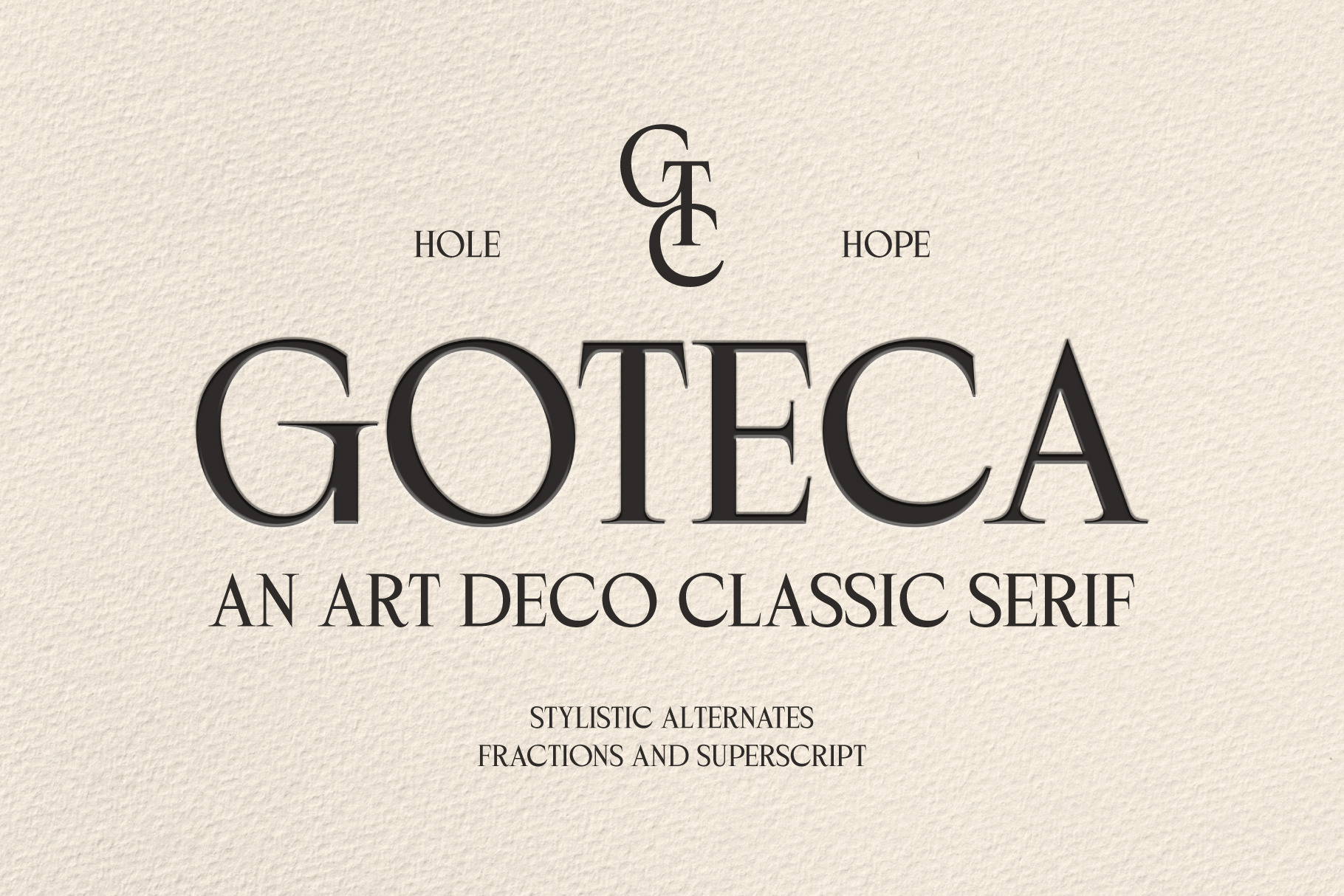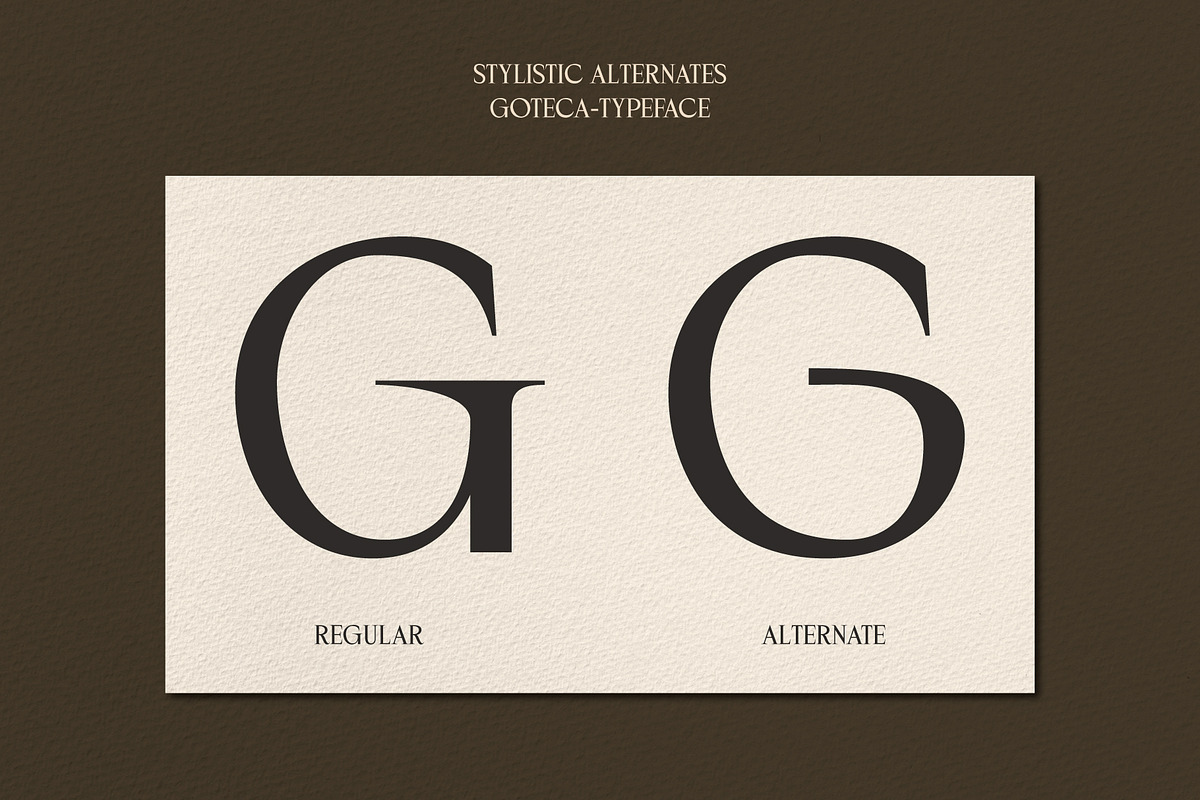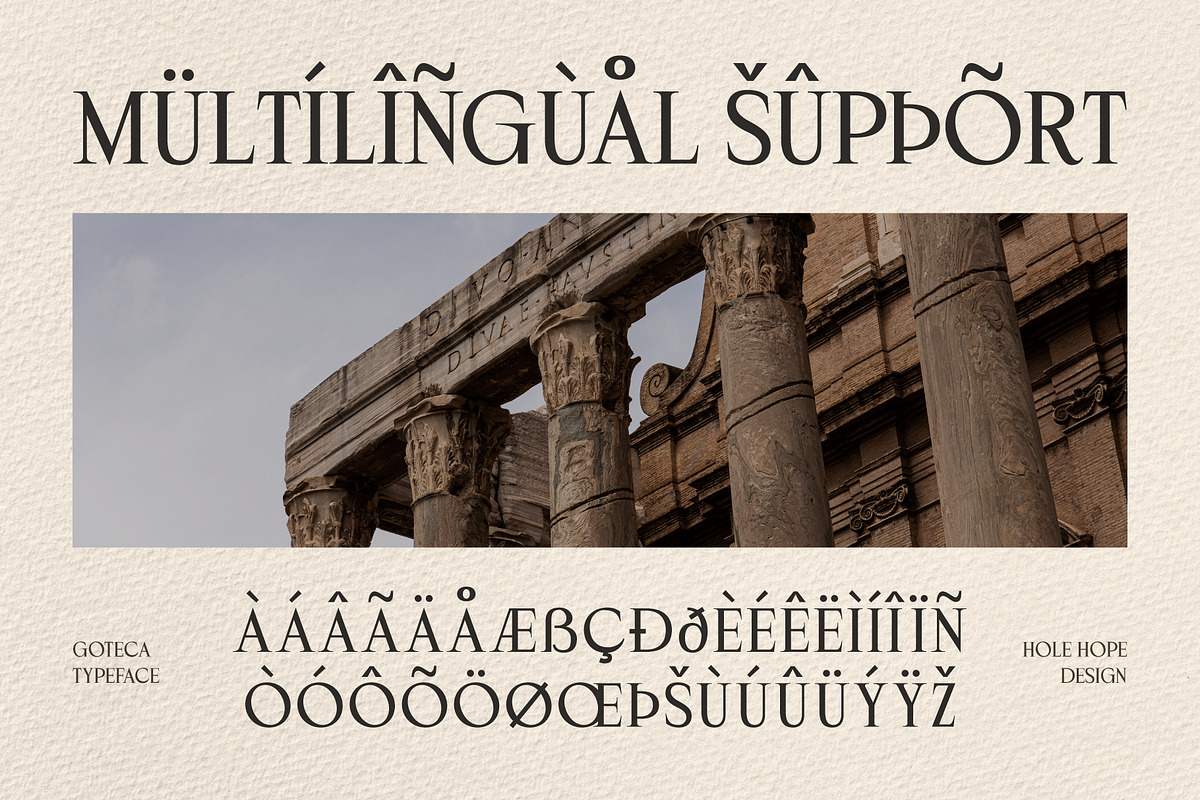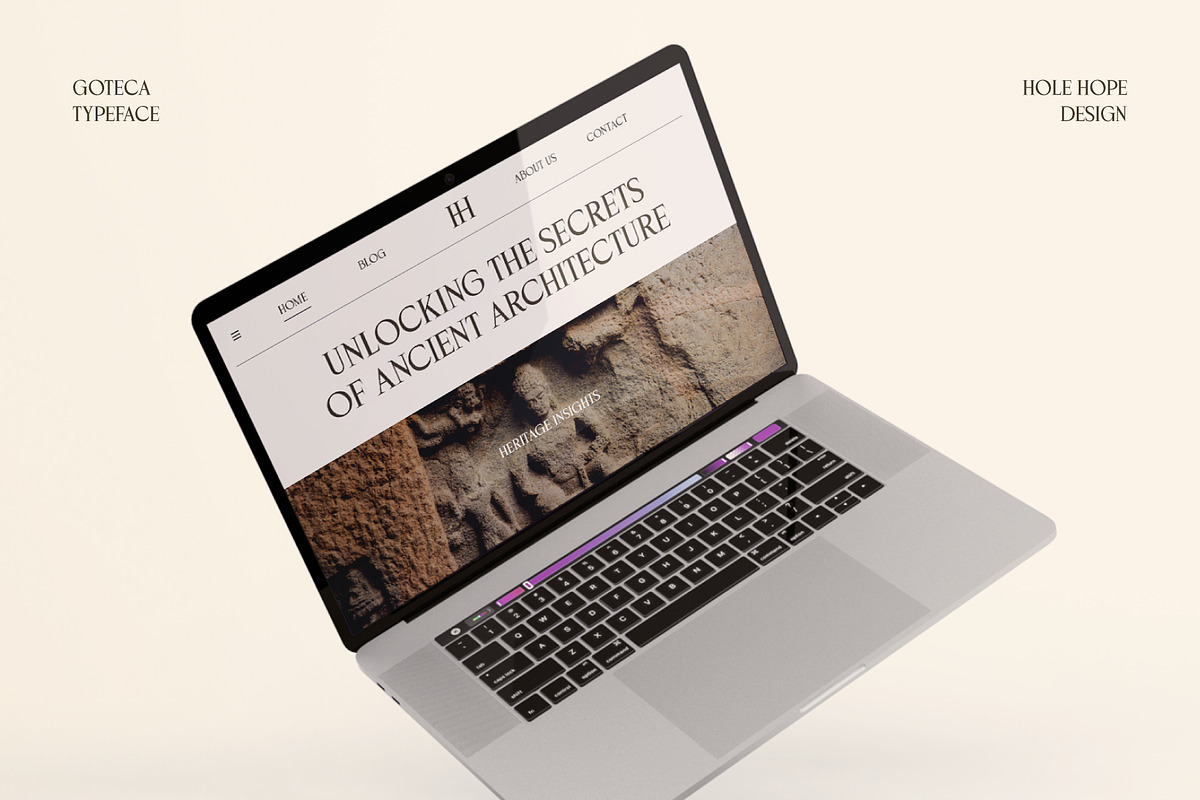
Goteca | Art Deco Classic Serif Font
Goteca is a timeless masterpiece that beautifully blends the elegance of Art Deco with the clean lines of vintage minimalism. Perfectly suited for vintage enthusiasts and modern minimalists alike, this font brings a touch of classic sophistication to any project. Whether you’re designing logos, invitations, or editorial layouts, Goteca Art Deco Classic Serif offers versatility and charm. It’s sleek serifs and refined details capture the essence of a bygone era while maintaining a contemporary feel. Elevate your designs with the enduring allure of Goteca, where vintage meets modern minimalism in perfect harmony.
- Character Set (All Caps)
- Alternates “G”